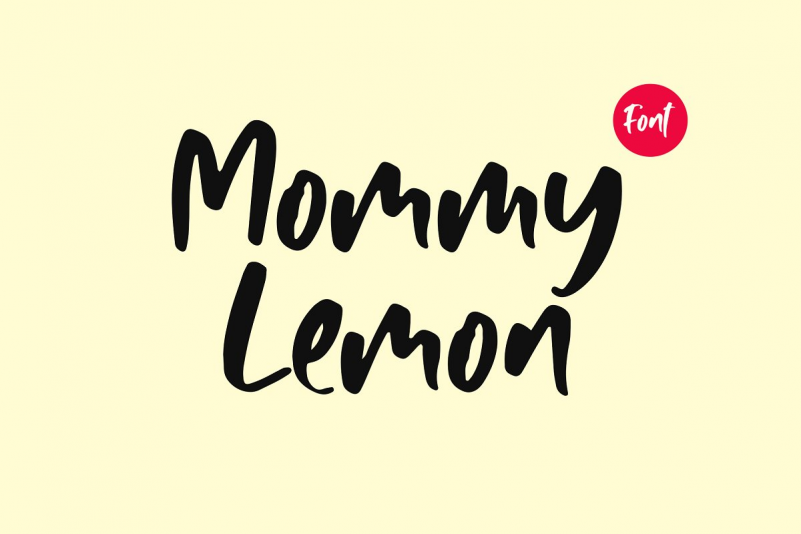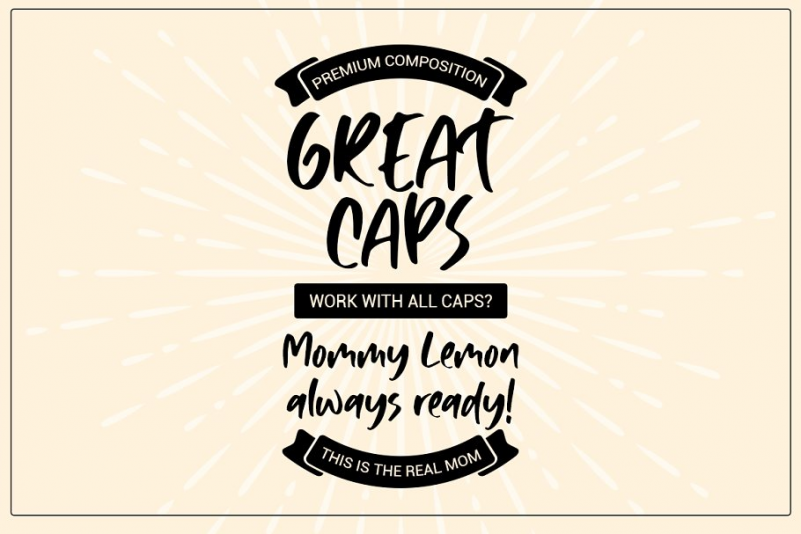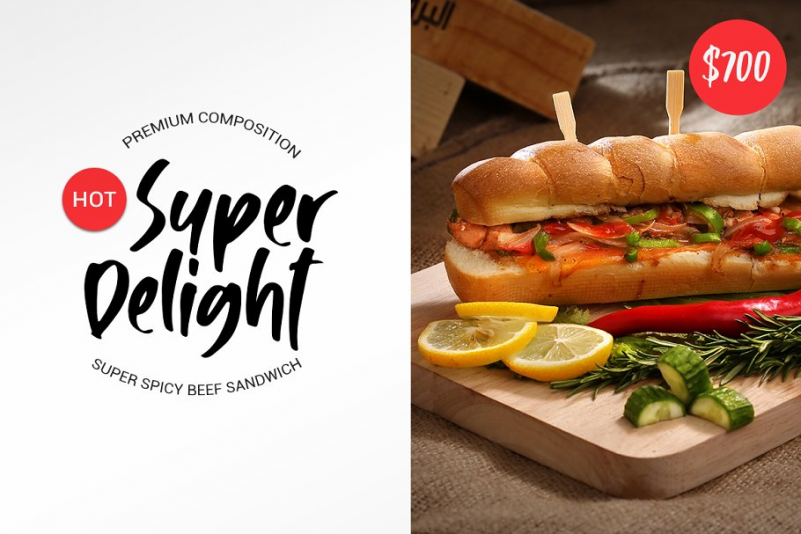
Mommy Lemon Font
Mommy Lemon – a smooth handcrafted font with delightful characters. It’s great for headline, logo, poster, spa or hotel projects, food projects, and many more.